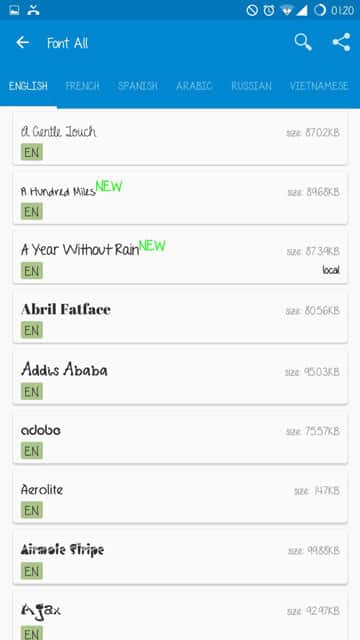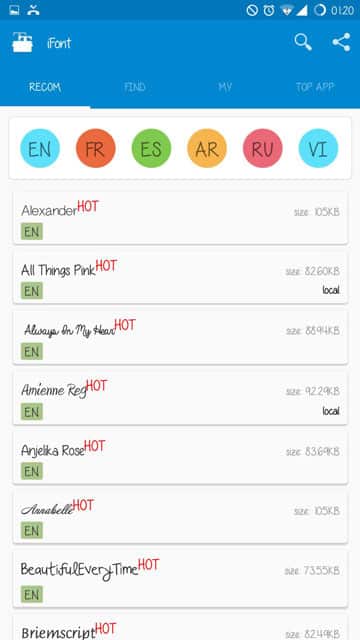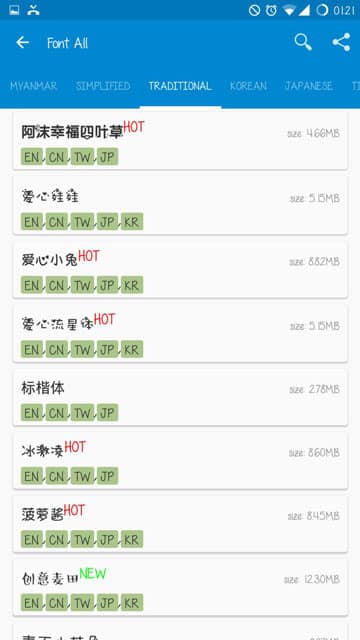
Enjoy Custom Fonts on Android Devices with This App
Customizations are the key reasons most of us stick to Android. We all love customizations. And Android is continuously testing the limits of how far we can go to customize. At present you can customize wallpaper, lock screen wallpaper, resolution / dpi, sounds, notifications, color scheme, app drawers, look & feel and even boot animations. One customization that really affects the overall look of the phone is the font.
A cursive font can bring out a great informal look while a simple change to clean and straight fonts can give an official look to your device. Fonts mostly come preloaded onto themes created by different teams and most of them are really great. Most of us choose some elements of one theme and some of others. Because frankly speaking, its difficult to find a theme that is perfect in all aspects.  So what to do?
There is a solution. Multiple apps exist on the Play Store that will let you set a font of your choice regardless of what theme / ROM you are using.
Although there are dozens of apps available, but we shall talk about one that we tested across multiple devices and ROMs. The app is called iFont. Here’s what iFont lets you do:
• Support to modify the font size & support for custom fonts
• Multiple Languages supported